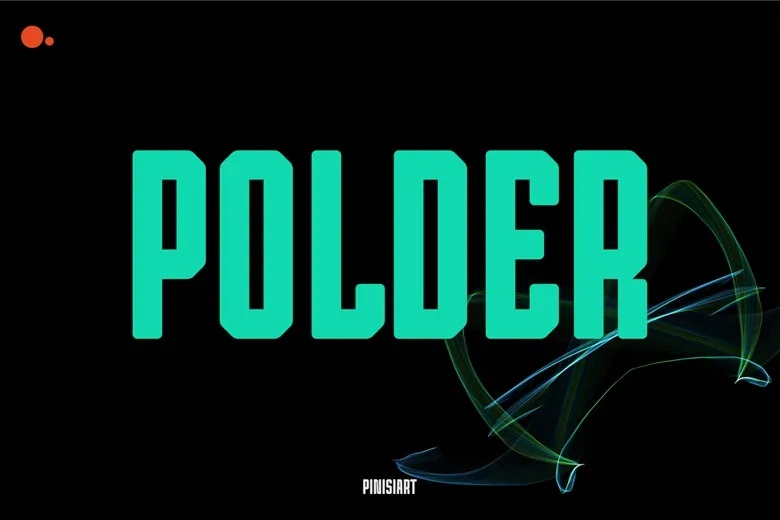
Polder Font
When introduced, Polder Font instantly captures people. It provides a sharp, vibrant appearance with steep geometry and heavy contrast to every layout. It does not simply adorn your design: it gives it the lead. The aesthetic of the font is both current, regulated, and quite loud, which perfectly suits obtaining the maximum effect on visual content on Instagram, etc.
Polder flourishes where it is necessary to be clear and powerful. It can be used by designers to produce eye-catching headlines, headline quotes, or scroll-stopping campaign imagery. The thickness of its strokes and angular movement generates rhythm and continuity in layouts. Consequently, your message is still legible as it is even in high-speed feeds or in busy interfaces.
Polder Display Font